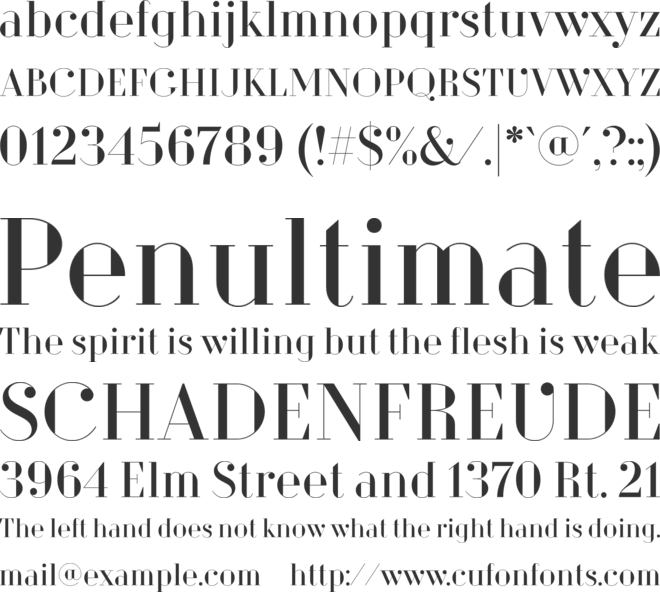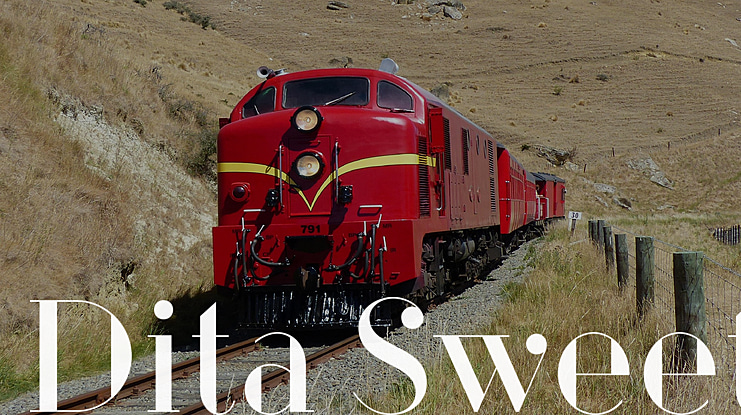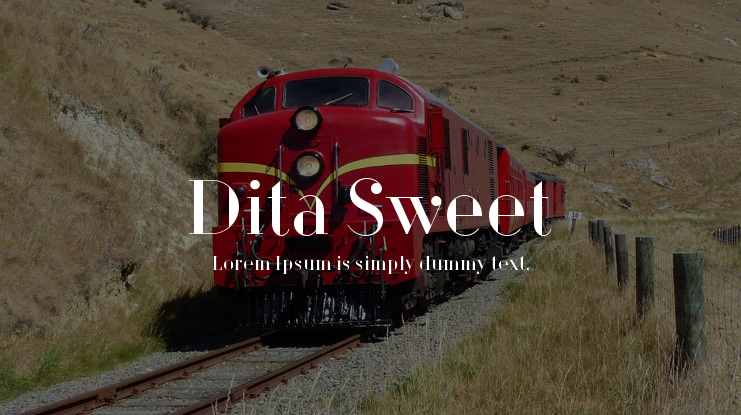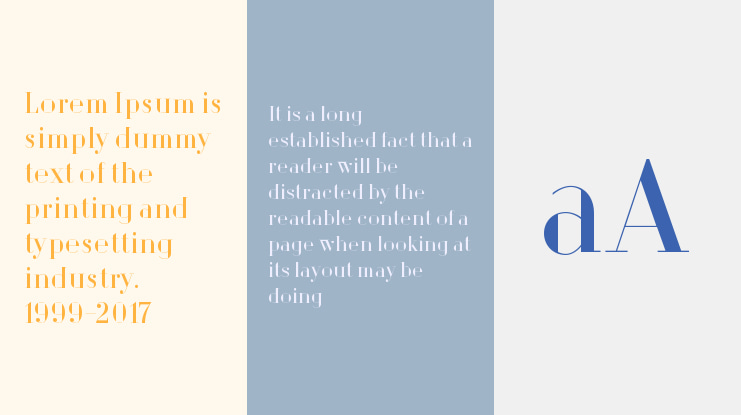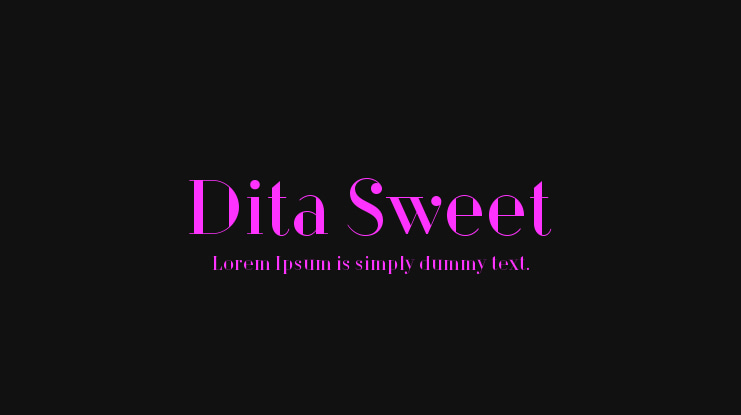
Dita Sweet Font
Ksenia Semirova & Jovanny Lemonad
Ditasweet free font contains more than 400 symbols including numbers, glyphs, ligatures and accents. It might be used in any European language and also in Russian, of course. Ditasweet could be used for projects such as glamorous posters or fancy magazines’ titles.